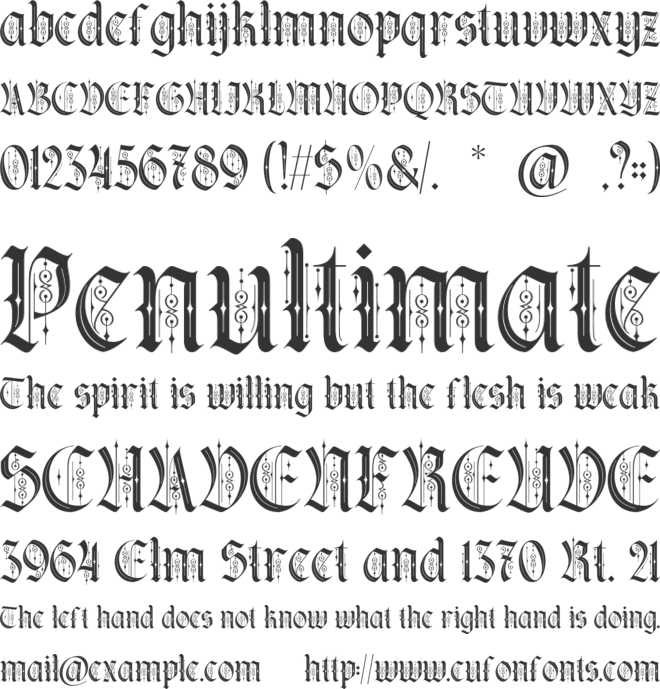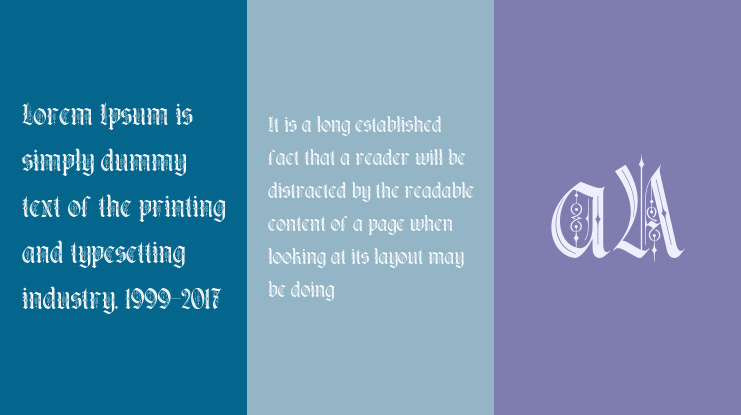
Kraken gothic Font
Kraken Gothic Typeface
Embrace the collision of classical elegance and futuristic rebellion with Kraken Gothic, a modern cyber-gothic typeface designed to make a striking statement. Inspired by timeless blackletter typography and infused with a dark, edgy aesthetic, this font bridges the gap between vintage artistry and modern streetwear.